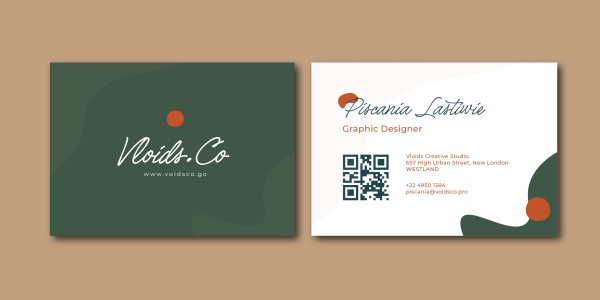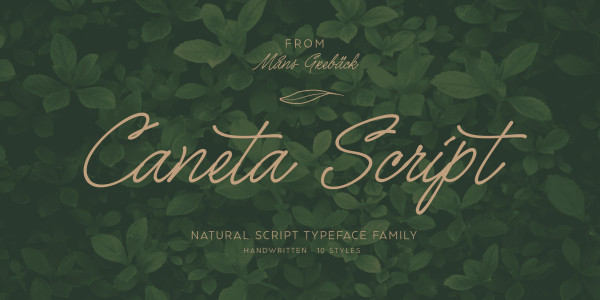
Caneta Script Font
Caneta Script Font captures the essence of traditional handwriting with its pen and ink-inspired calligraphy style.
Reminiscent of handwritten letters and feather pen scribbles, its delicate penmanship and nostalgic charm embodies the essence of the past while catering to the modern world, a testament to the timeless allure of the 1950s and the art of handwritten letters.